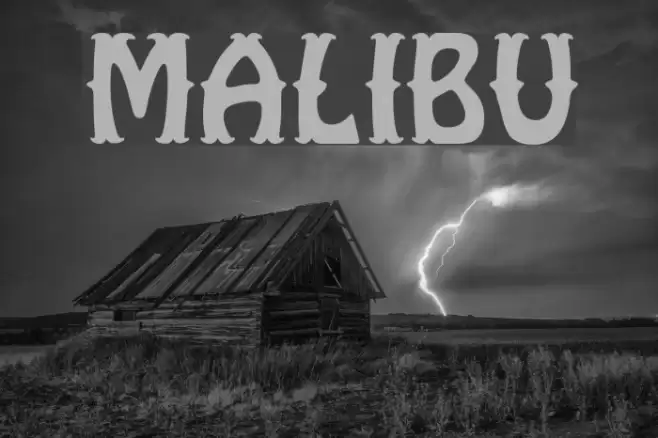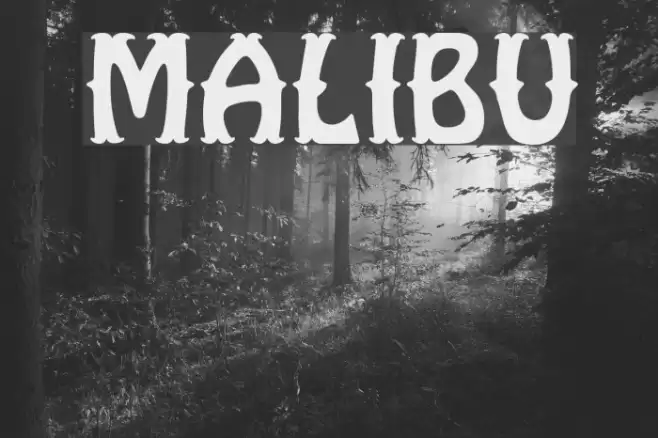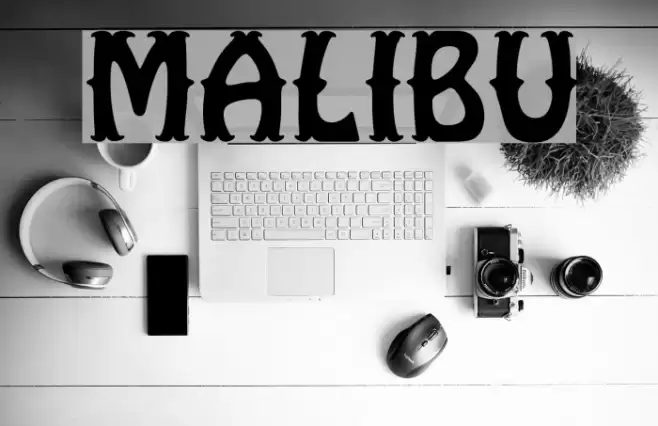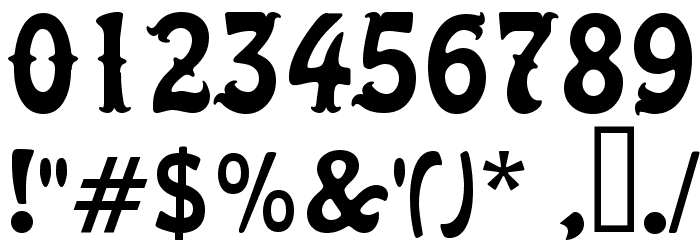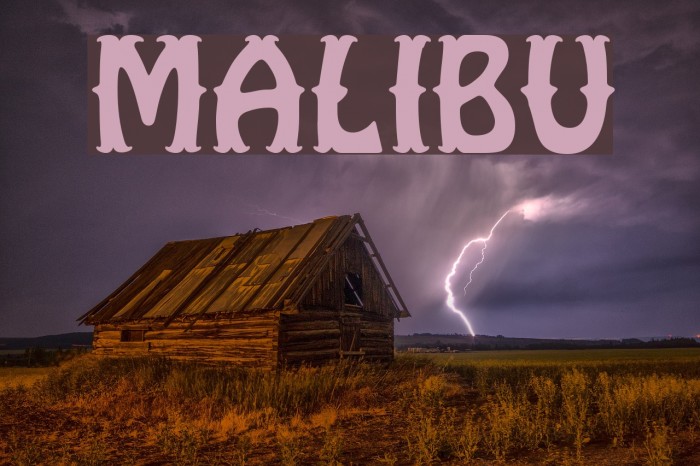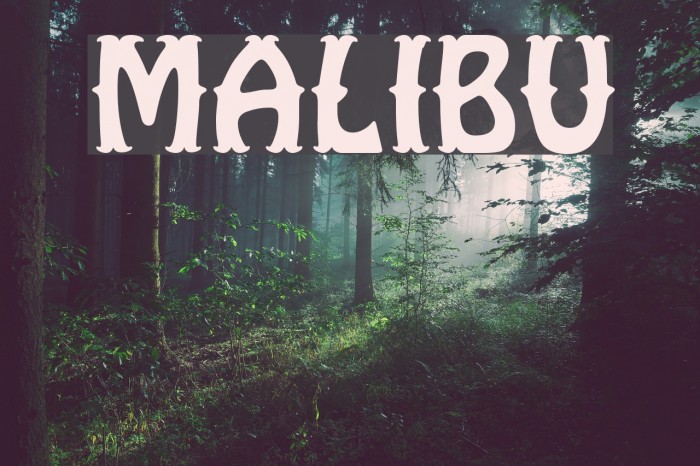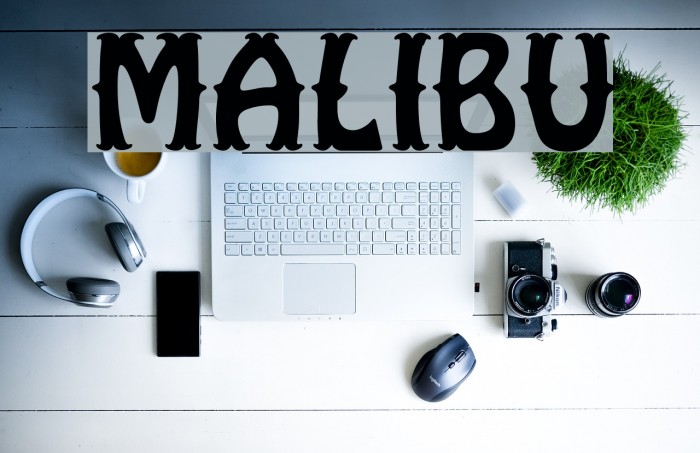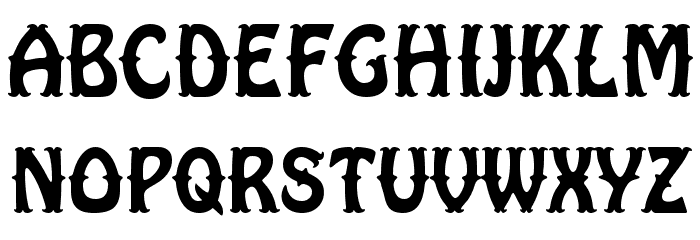
Malibu Font
Malibu Description
This font features a bold and decorative style with a playful and slightly vintage feel. The characters are uniquely designed with thick strokes and subtle curves, giving them a distinctive and eye-catching appearance. The uppercase letters are particularly striking, with exaggerated serifs and a strong presence. The numbers and special characters maintain the same boldness and decorative flair, ensuring consistency throughout the typeface. This font is ideal for projects that require a touch of personality and flair, making it perfect for creative and artistic applications.
A bold, decorative font with a playful, vintage flair from Uncategorized fonts.
- Proposed Projects: Ideal for posters, logos, branding, and creative design projects that require a bold and artistic touch.
- Overall Style: Vintage, Decorative